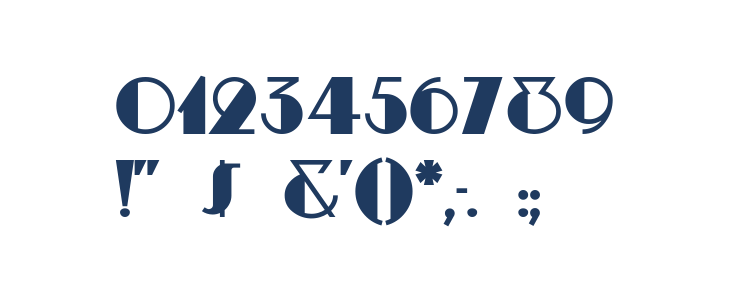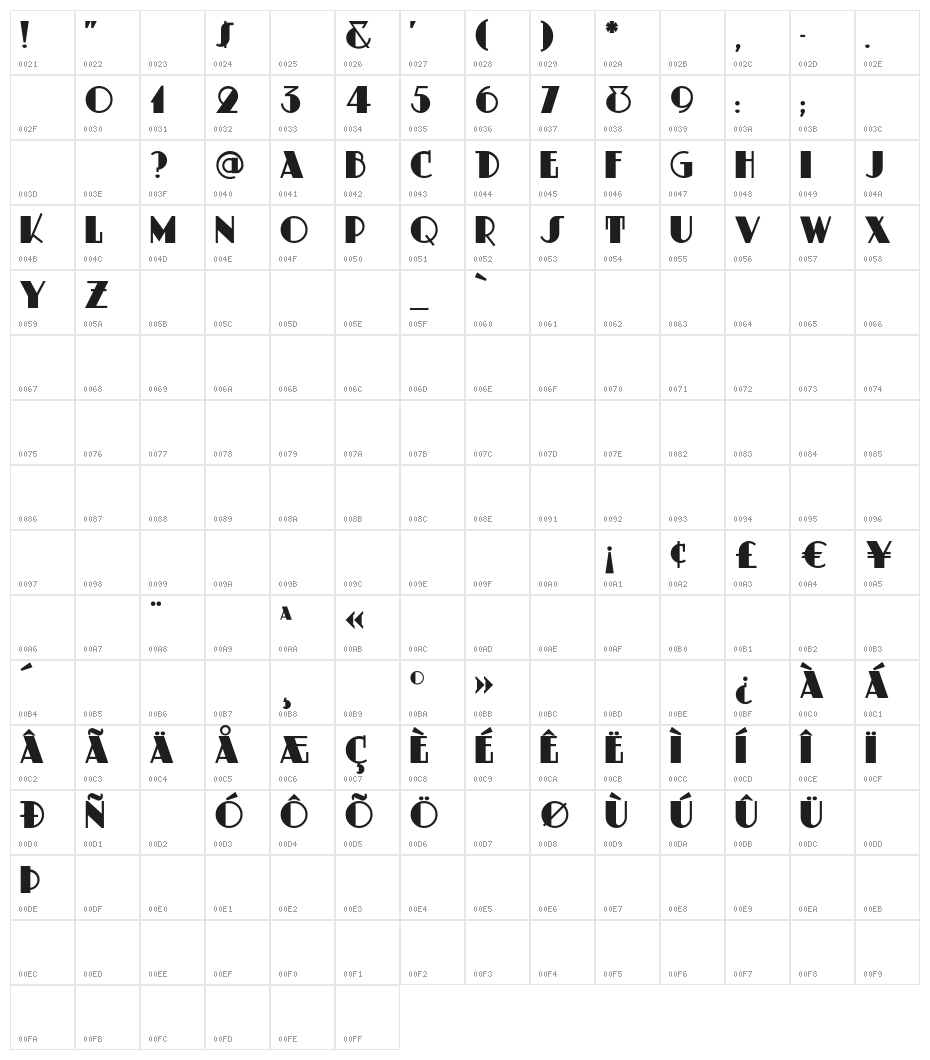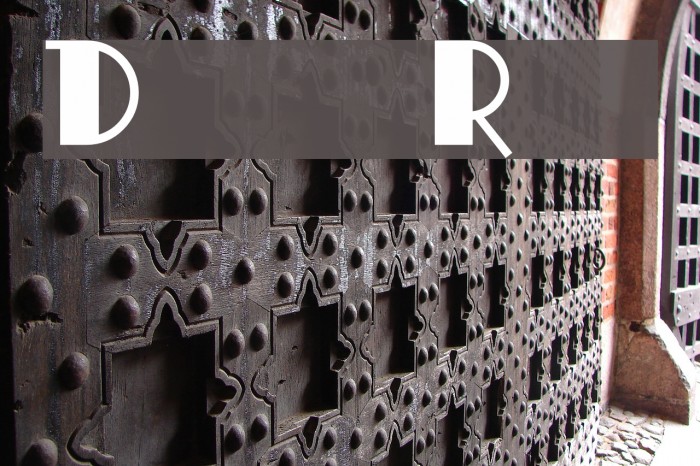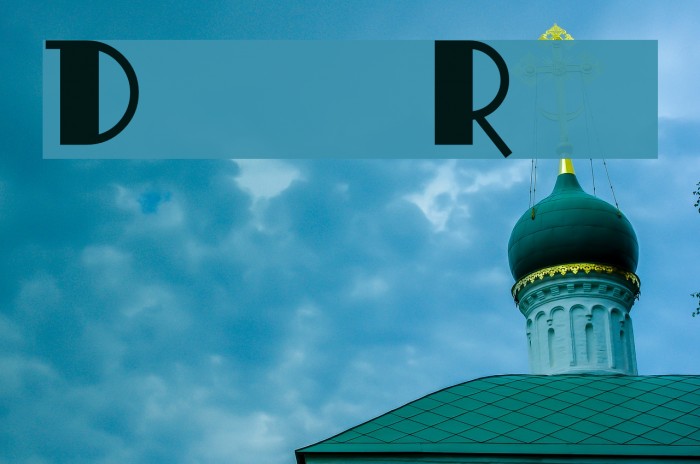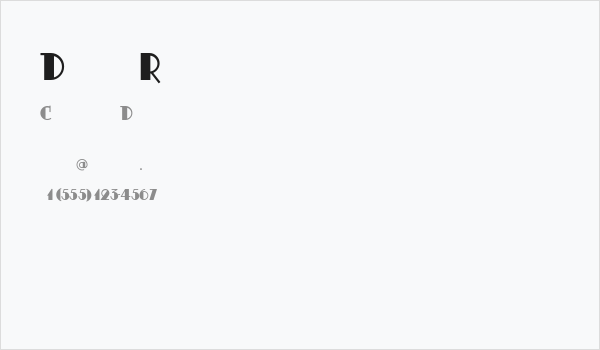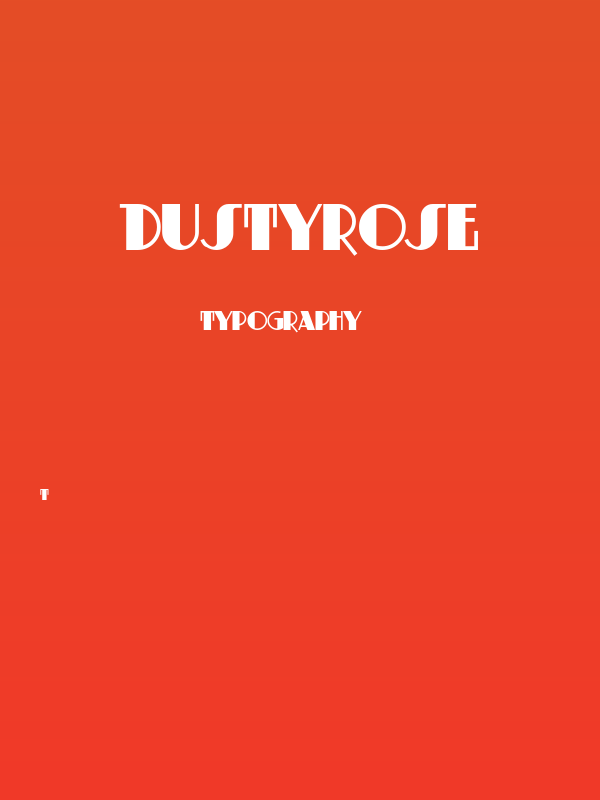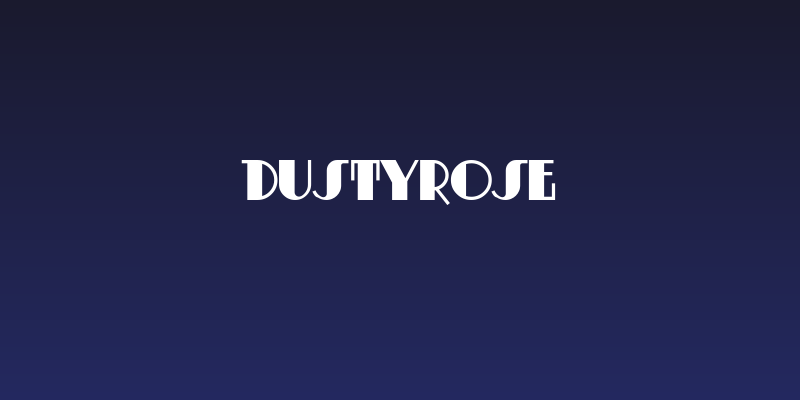
DustyRose Font
DustyRose Description
This font features a bold, geometric design with a strong Art Deco influence. The uppercase letters are characterized by their sharp angles and unique cutouts, creating a striking visual impact. The numbers follow a similar style, maintaining the bold and geometric aesthetic. Special characters are creatively designed, adding to the font's decorative appeal. The overall look is both modern and vintage, making it versatile for various design projects.
| Overall Style | Modern, Vintage |
| Proposed Projects | Ideal for branding, posters, and editorial design where a bold statement is needed. |